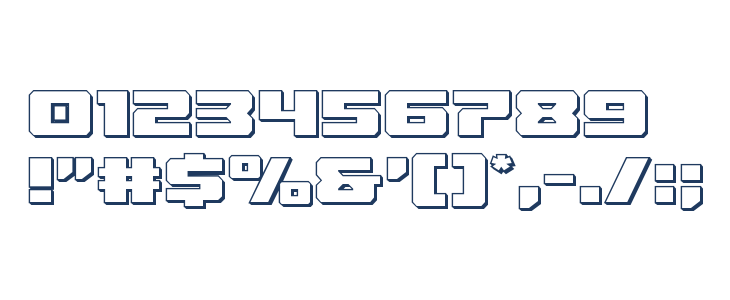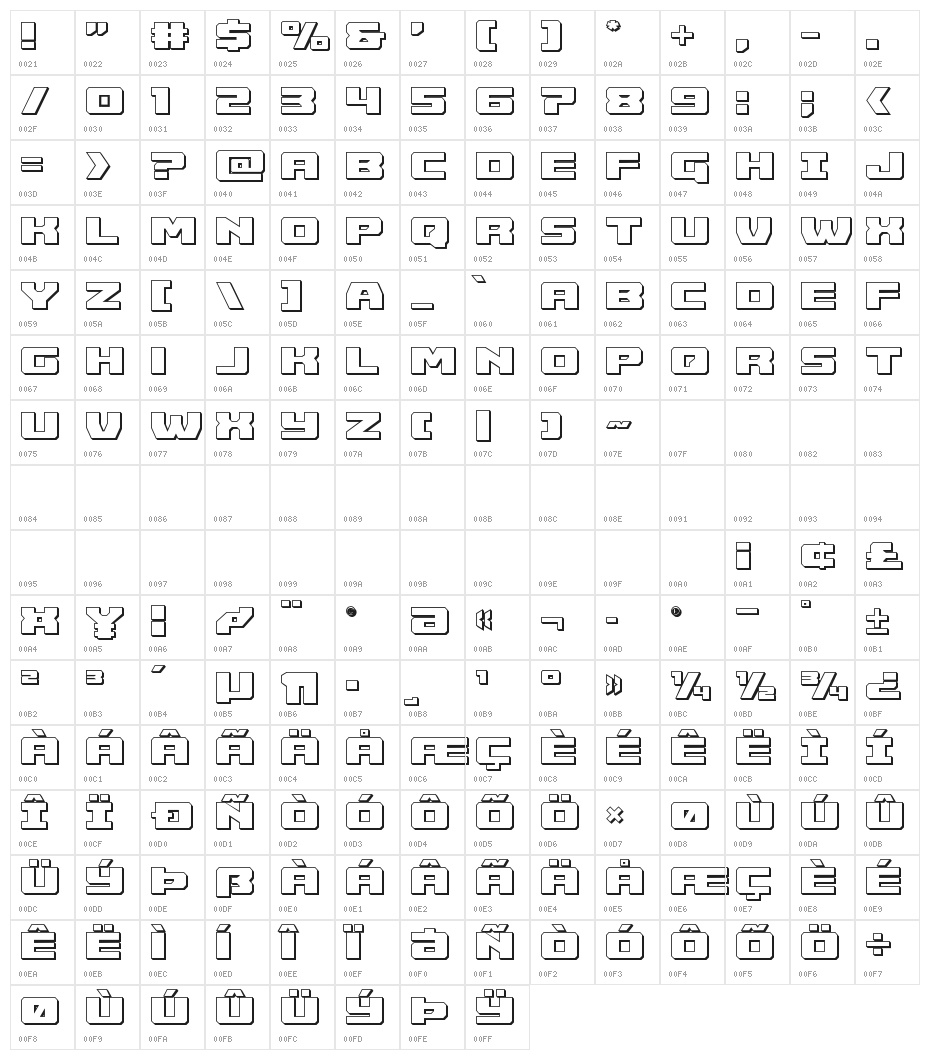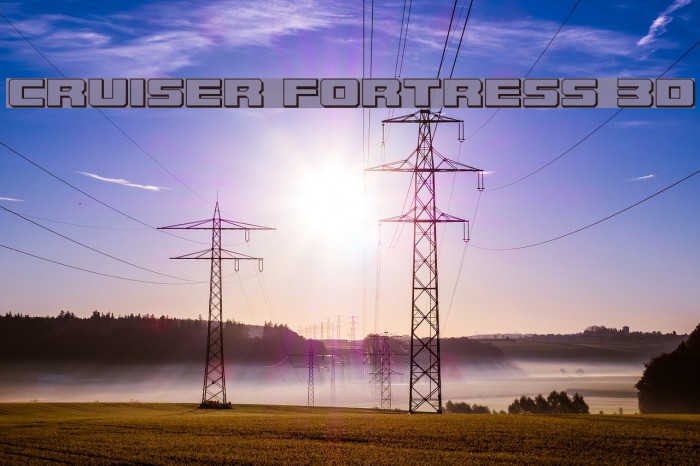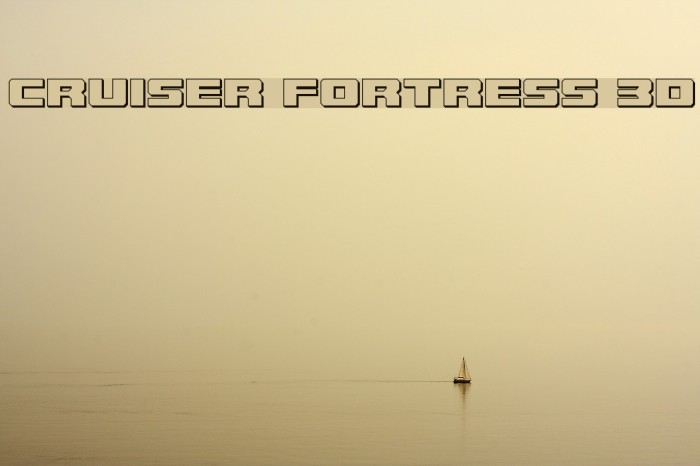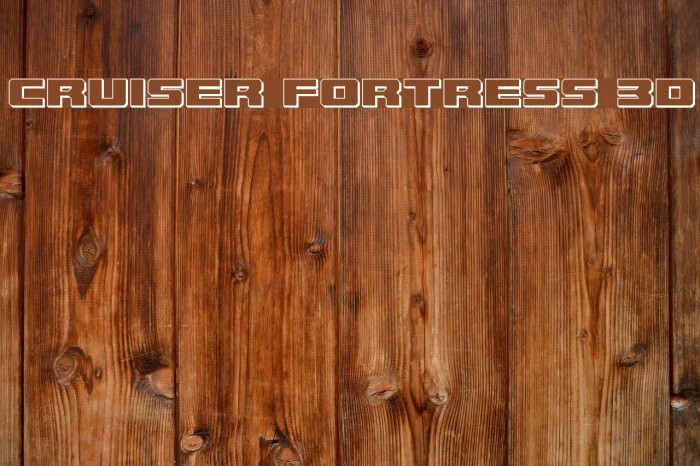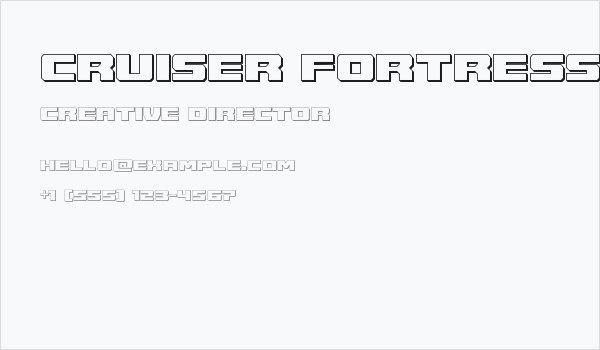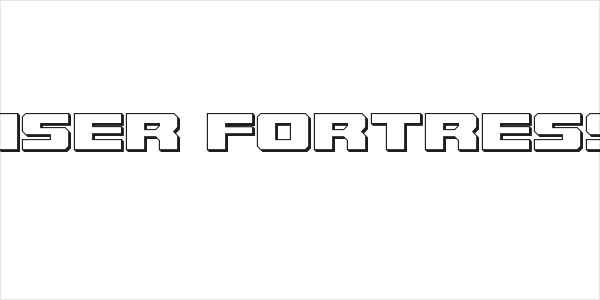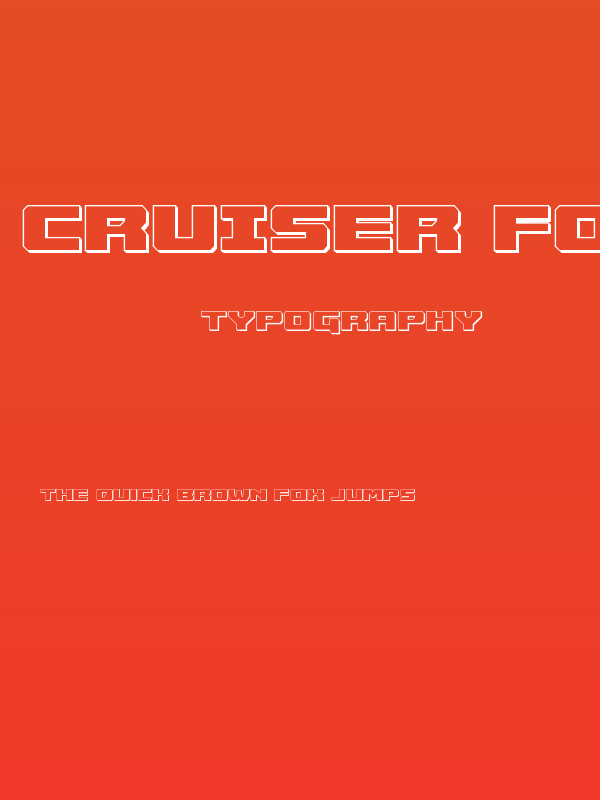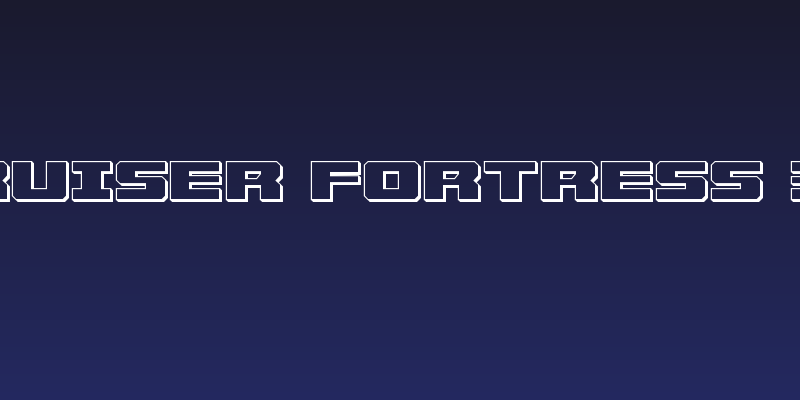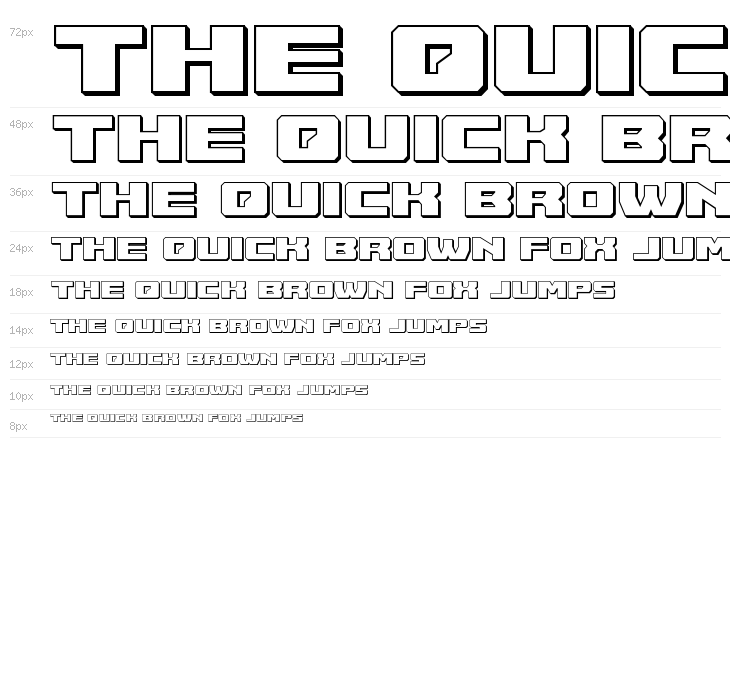
Cruiser Fortress 3D Font
Cruiser Fortress 3D Description
This font features a bold, three-dimensional style with a strong, geometric structure. Each character is outlined with a thick border, giving it a solid and impactful appearance. The letters are uppercase and have a uniform height, contributing to a cohesive and structured look. The font's design incorporates sharp angles and straight lines, creating a futuristic and industrial feel. The numbers and special characters maintain the same bold and outlined style, ensuring consistency across all glyphs. This font is ideal for projects that require a strong visual presence and a modern, edgy aesthetic.
| Proposed Projects | Ideal for video game titles, sci-fi movie posters, technology branding, and any project needing a strong, modern aesthetic. |